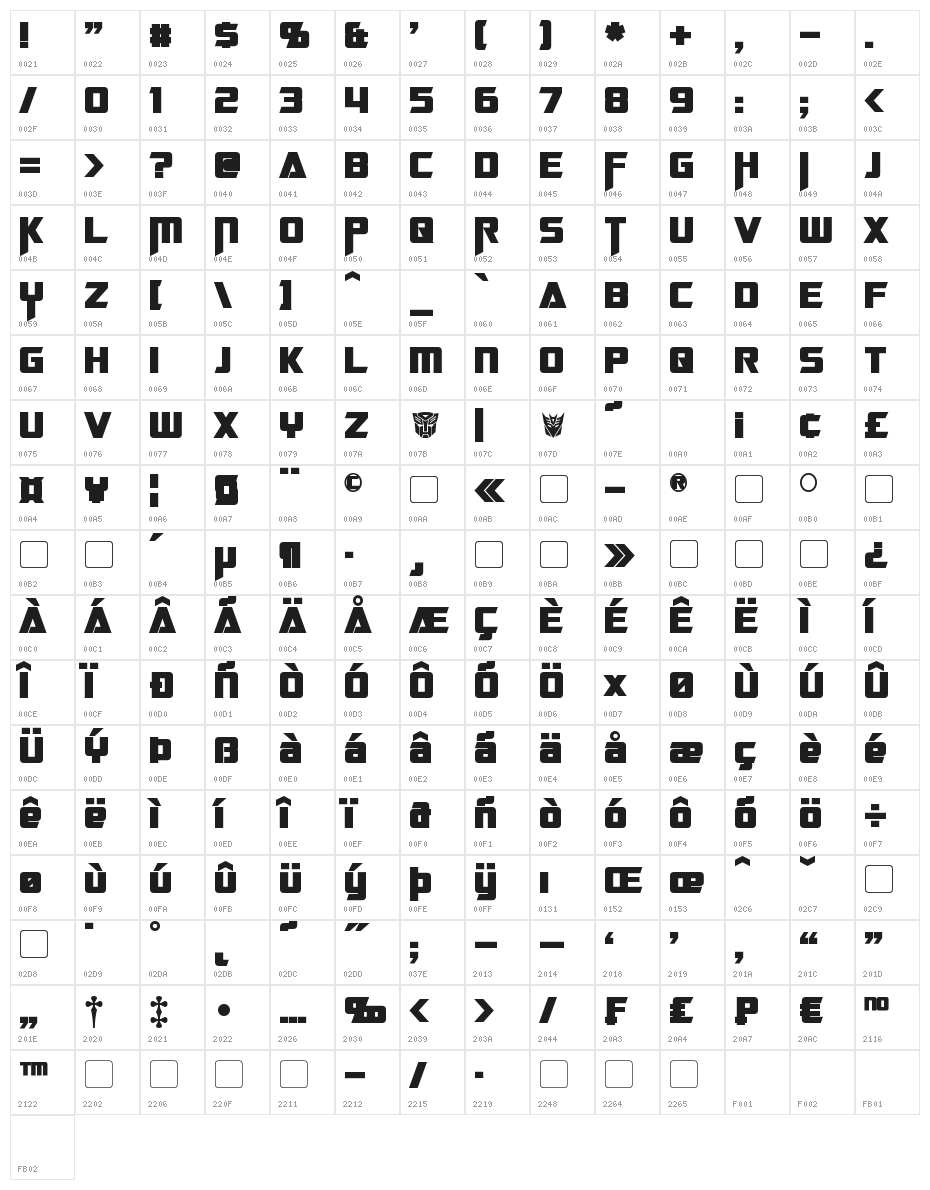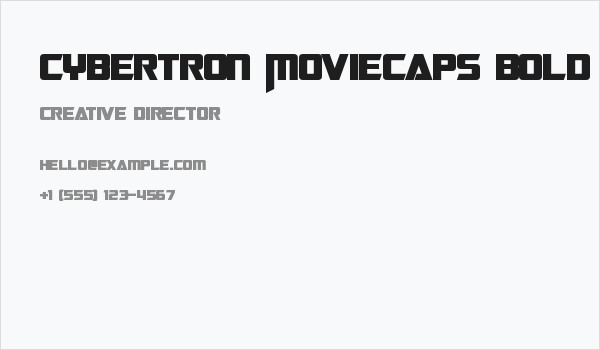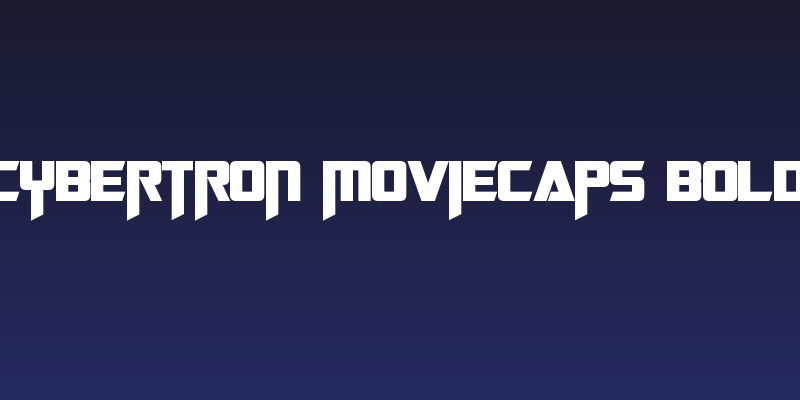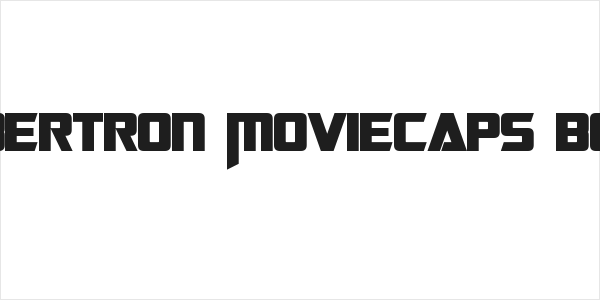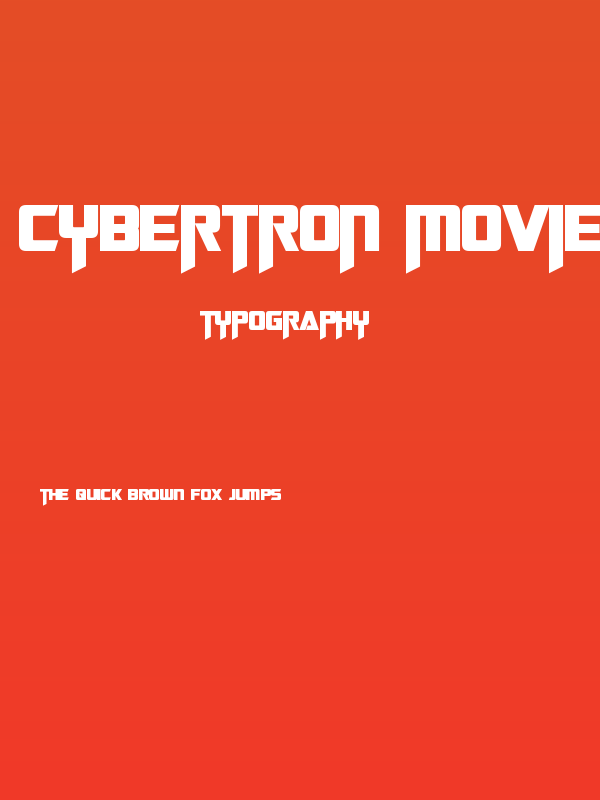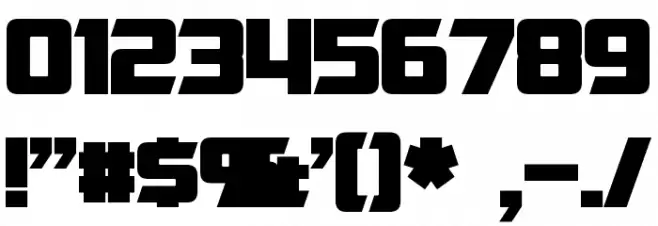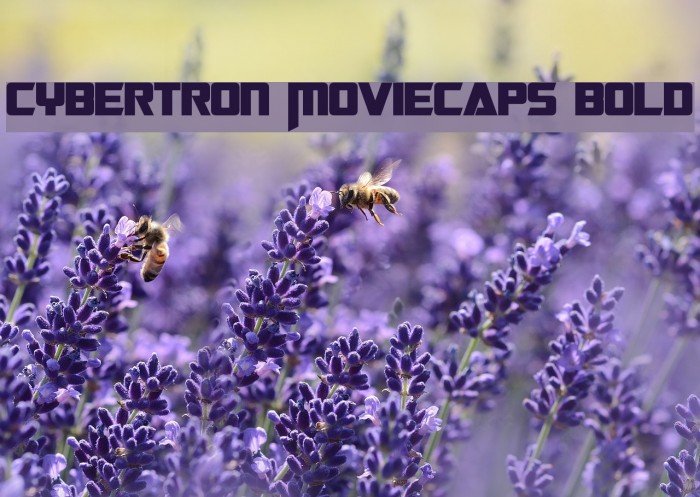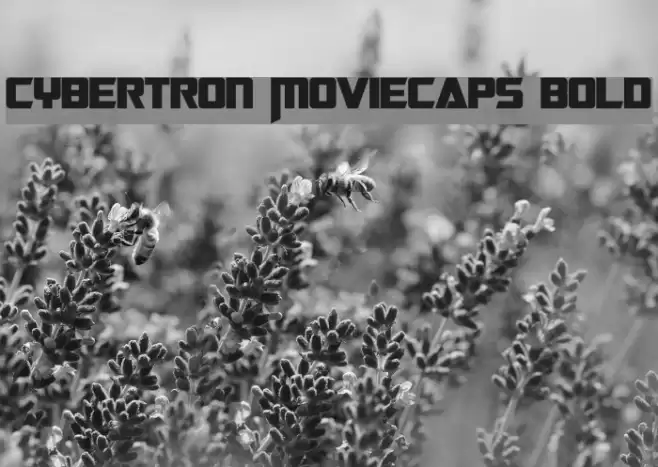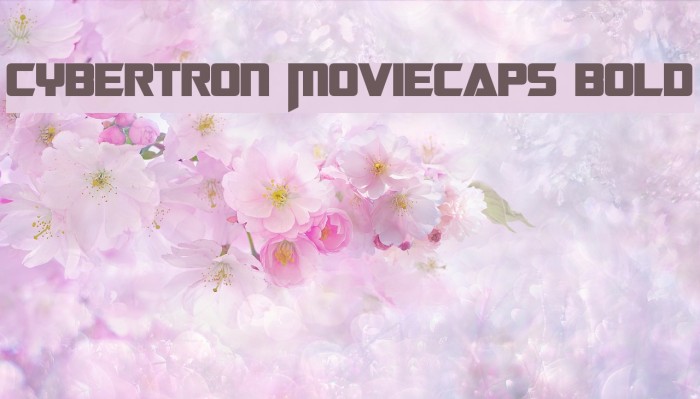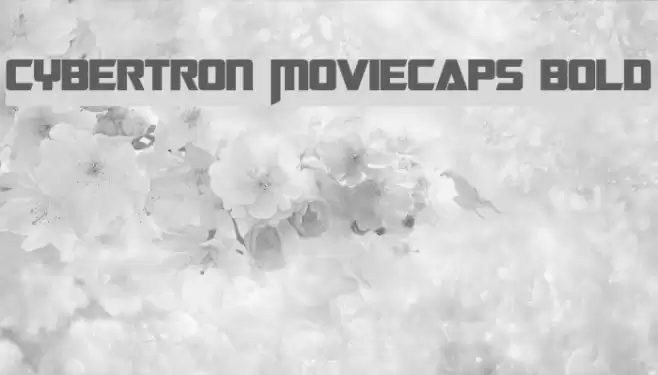
Cybertron Moviecaps Bold Font
Cybertron Moviecaps Bold Description
This font features a bold, futuristic design with sharp angles and geometric shapes, creating a strong and impactful visual presence. The uppercase letters are characterized by their blocky, angular forms, reminiscent of a sci-fi or tech-inspired aesthetic. The numbers and special characters maintain this bold, structured style, ensuring consistency across all glyphs. The font's design is highly stylized, making it ideal for projects that require a modern and dynamic look.
| Proposed Projects | Ideal for movie posters, video game titles, tech branding, and sci-fi themed designs. |